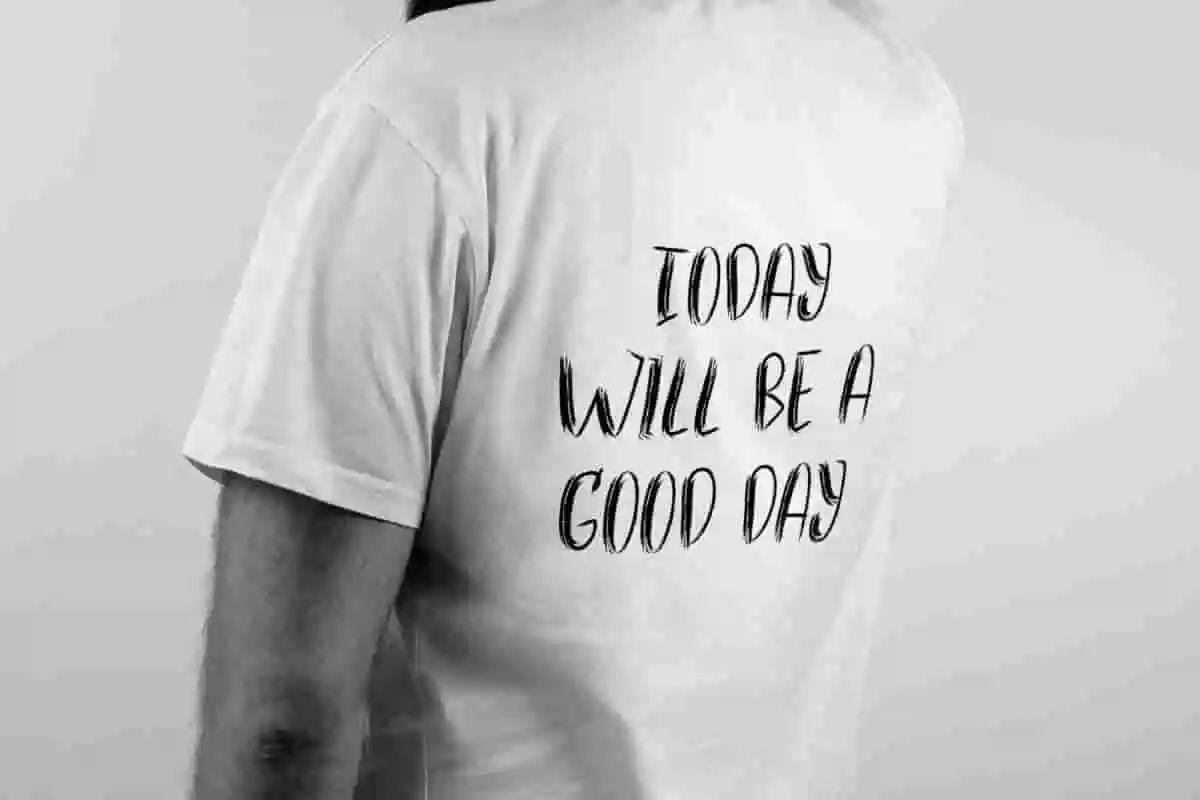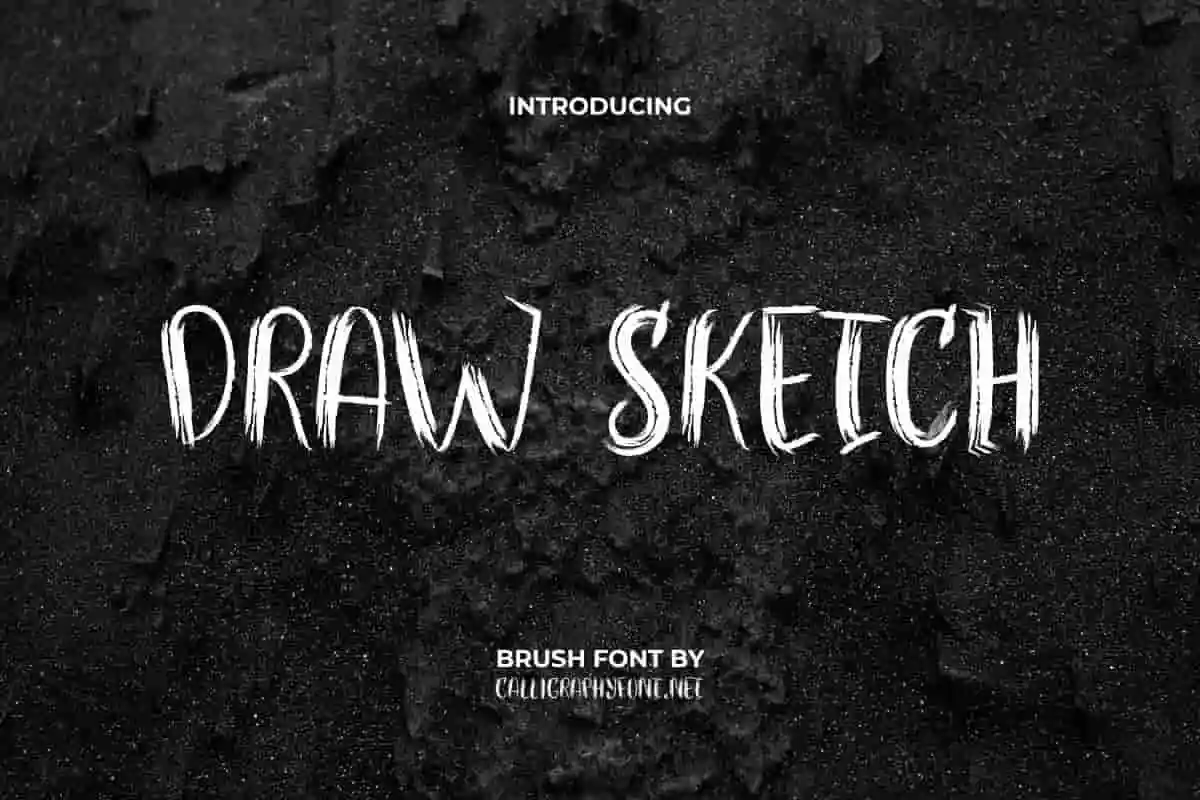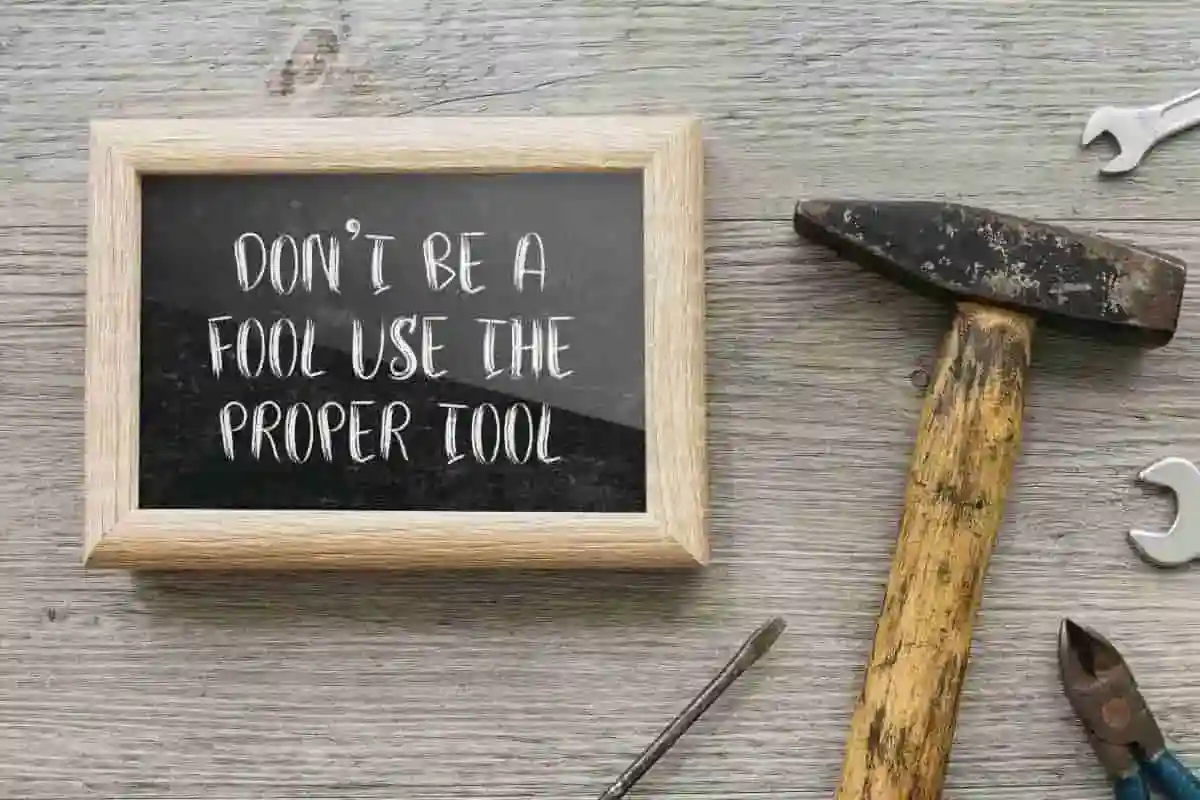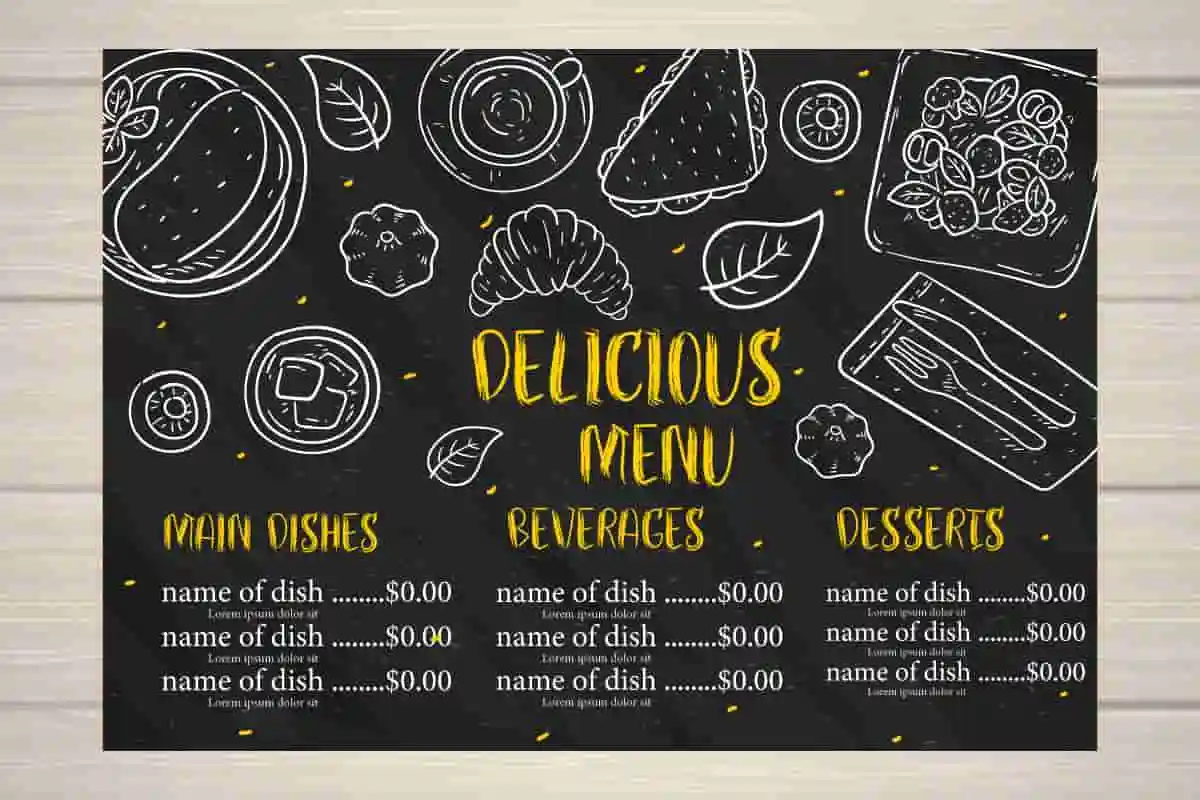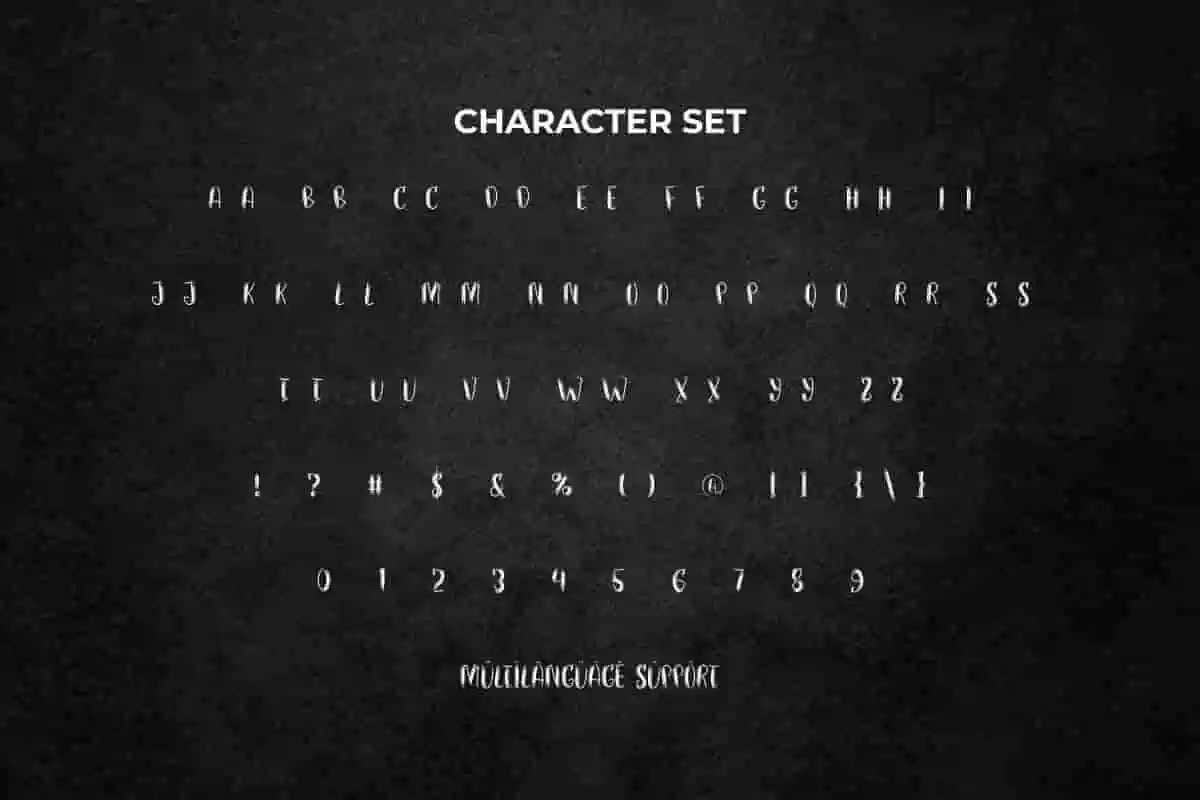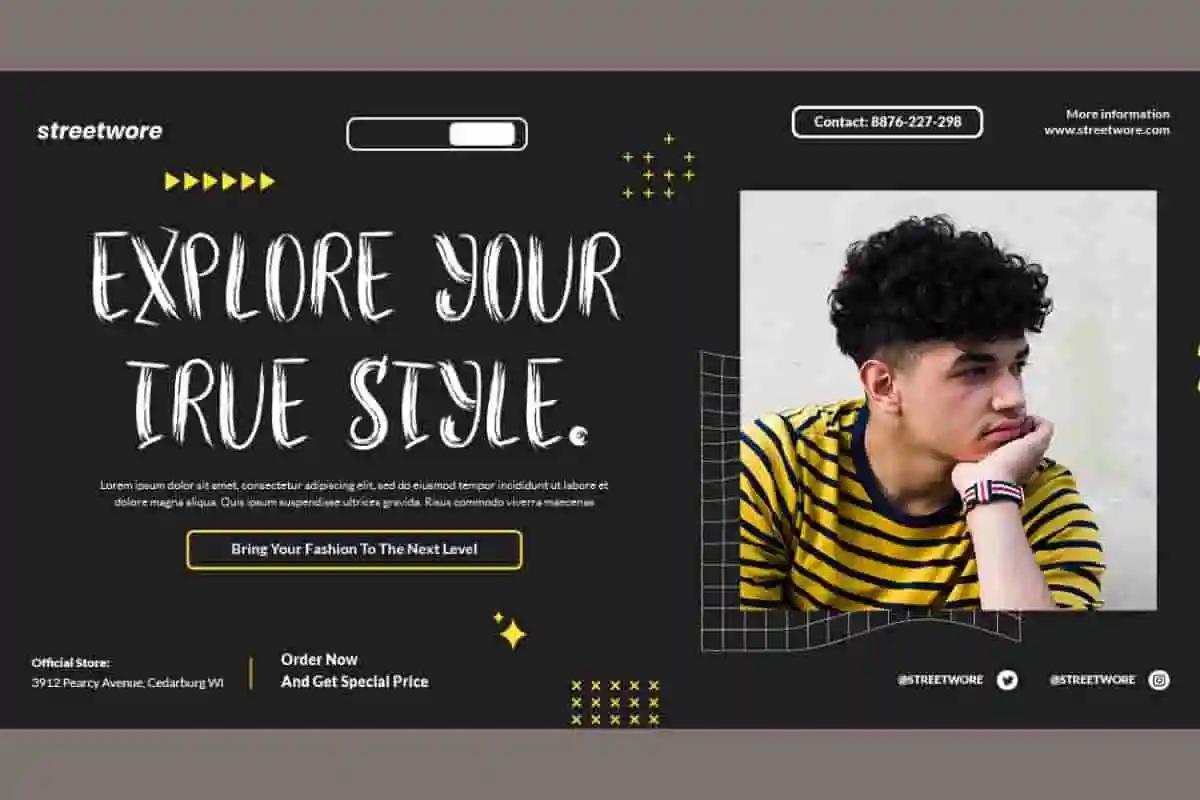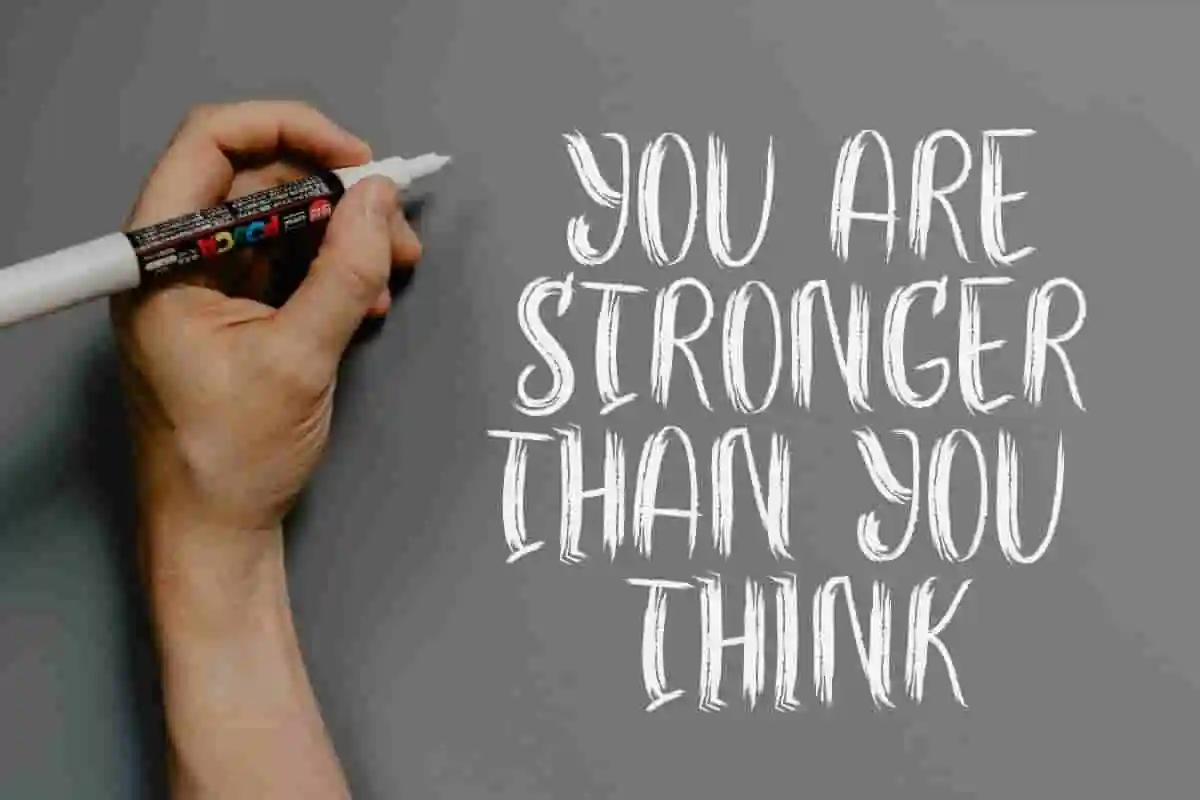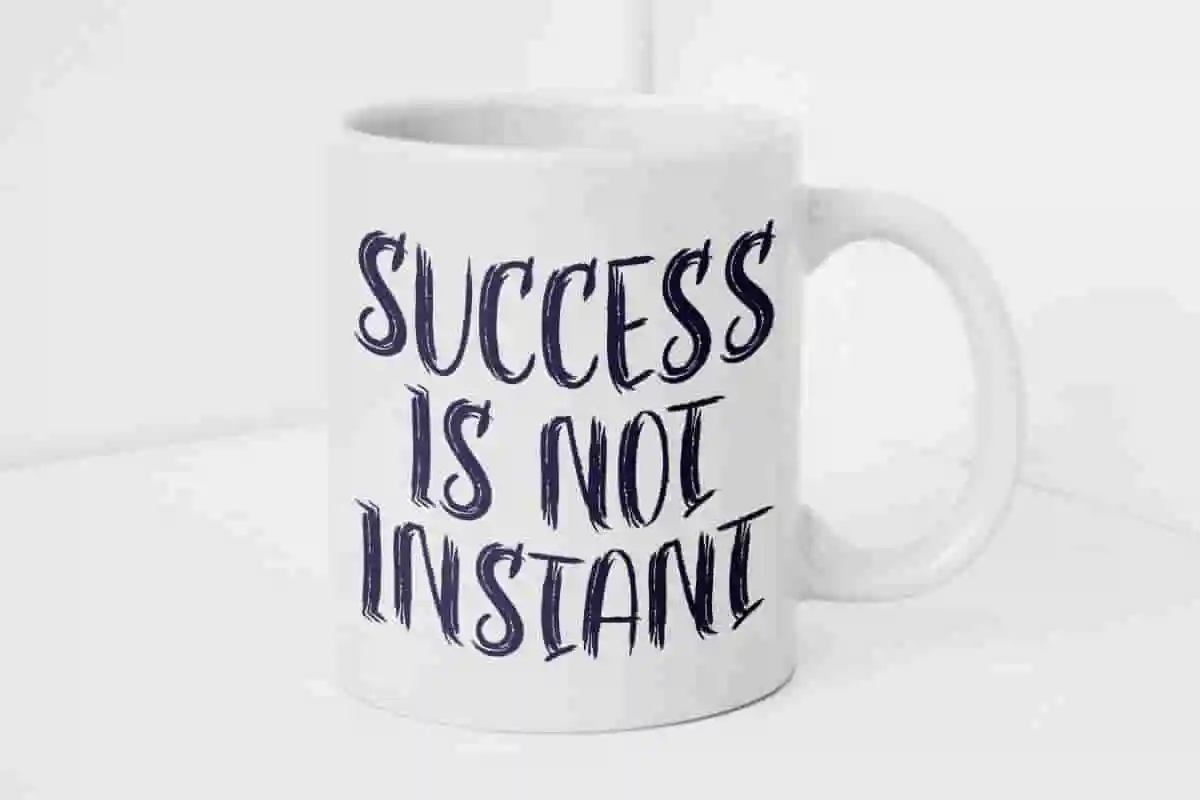
Draw Sketch Font
Draw Sketch Font is a cool textured brush font from scribble style. It will bring a youthful look of hype to apparel, magazine cover, poster designs, stationery etc.
Draw Sketch Font is a unique rough brush font inspired by sketches made in pencil. This cool brush font only has textured capital letter slots, so it stands out in creating an organic look when used. It would look perfect for any industry, such as artist, carpenter, clothing brand, font maker studio, earthenware, editorial design, furniture, graphic design, handicrafts, men’s fashion, movie, photography, printing, publishing, restaurant, toolmaker, and much more.
Draw Sketch Font is a trendy typeface with a choice of brush that comes in a scribble style without getting bored. It will add more rawness to your designs, perfect for your display projects such as apps, blogs, brand logo, brochure, catalog, cover, flyer, headline, label, menu, print posters, quote art frame, screen print, signage, stationery, sticker, title, watermark, website, and other projects that require a textured brushed style.
Draw Sketch Font comes with a full set of ALL CAPS for both Uppercase and Lowercase Basic Characters, Number, a large range of Punctuation and Symbol. Ready to use both on Windows machine or Mac with simple installations. It’s tested to work well in the Adobe Apps (Illustrator, Adobe InDesign, Adobe Photoshop) CorelDraw, and others. It supports multilingual characters. PUA Encode Characters means you can access all the characters easily – Fully accessible without additional design software.